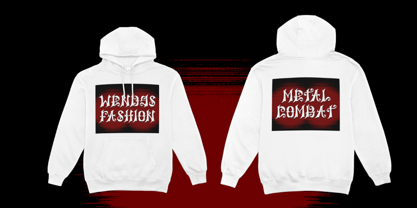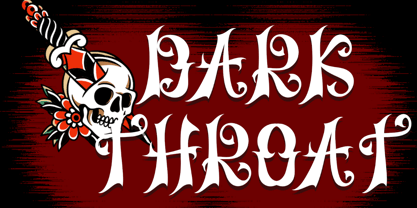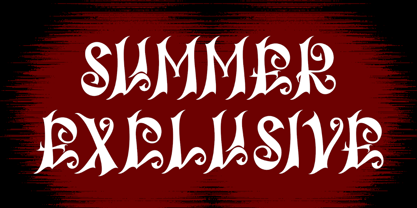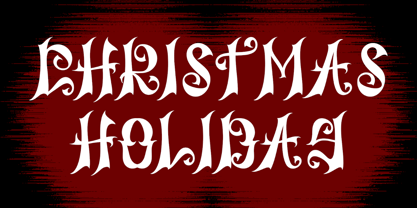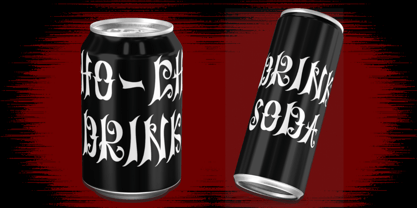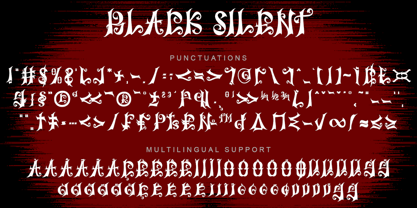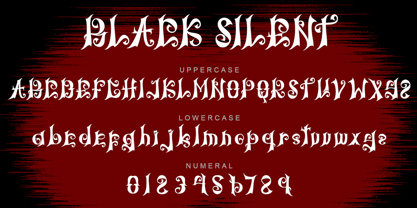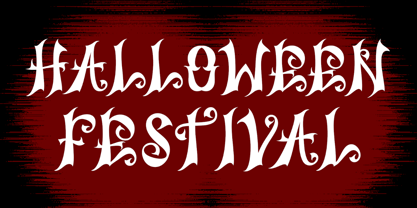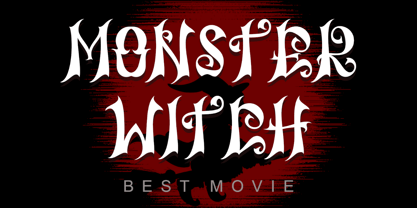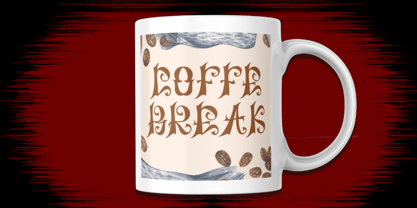
Black Silent
by Yoga Letter
The Black Silent Font Family was designed by Isroni Yoga Prasetya and published by Yoga Letter. Black Silent contains 1 styles.
"Black Silent" is a unique and elegant blackletter font. This font is made with professional hands and full of care. Equipped with uppercase, lowercase, numerals, punctuations and multilingual support. Very suitable for business branding, movie titles, music concerts, halloween, summer, christmas and others.